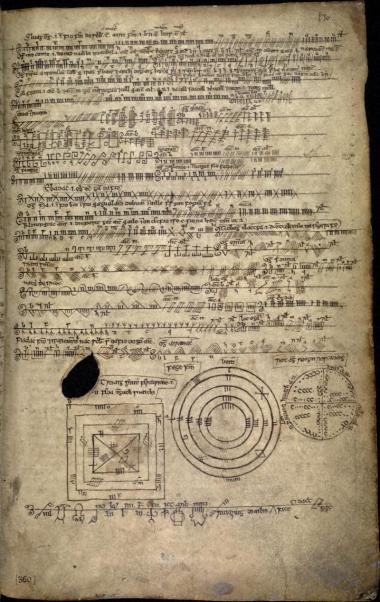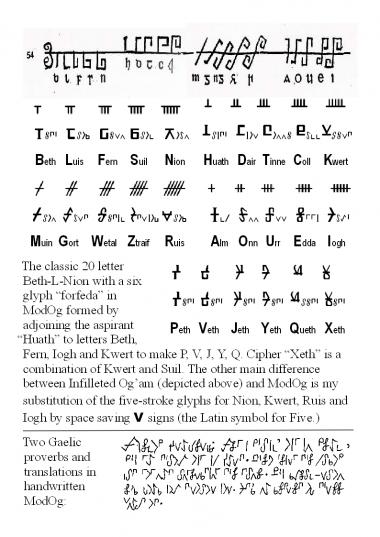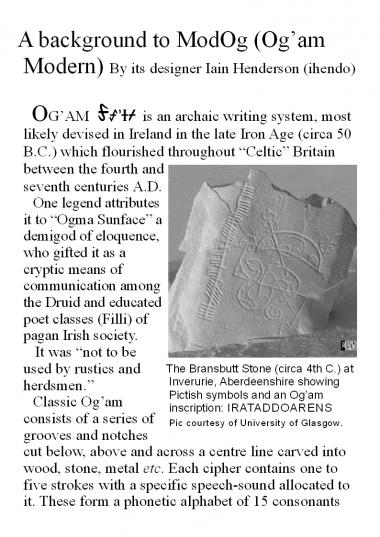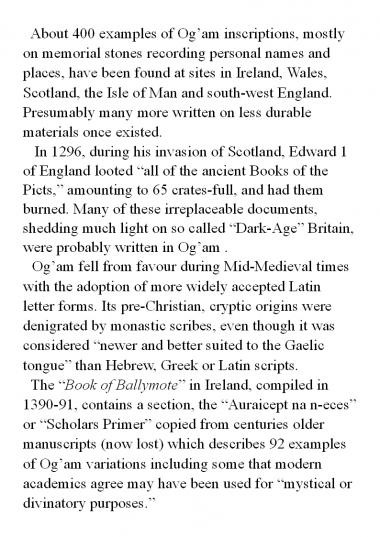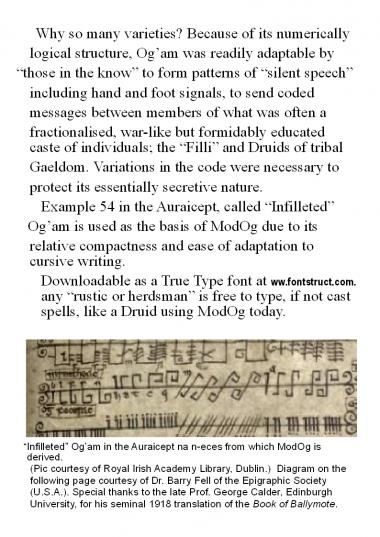
Page of Og'am examples in the 14th Century "Book of Ballymote" in Ireland. Example 54 called "Infilleted" Og'am is the basis of ModOg.
Diagram of Infilleted Og'am, and description of its development to ModOg.
A background to ModOg. Page 1.
A background to MoDog. Page 2.
A background to ModOg. Page 3.
A background to ModOg. Page 4.
ModOg (Og'am Modern)by ihendo